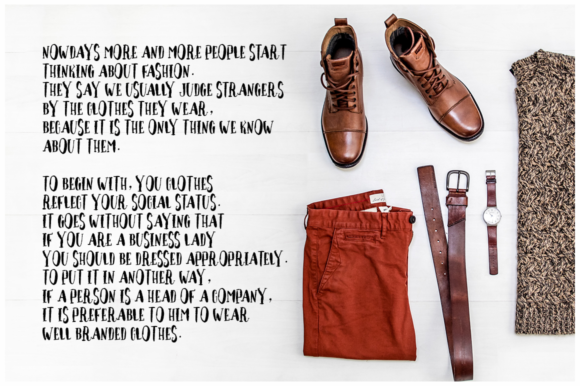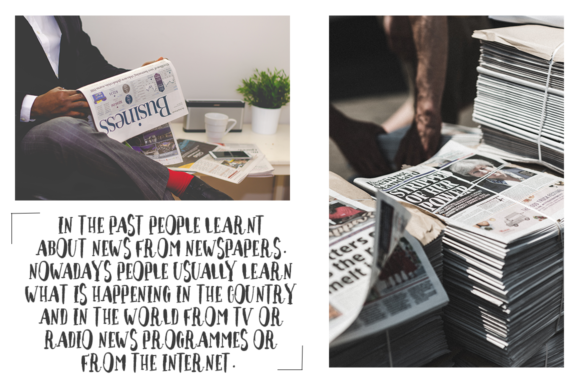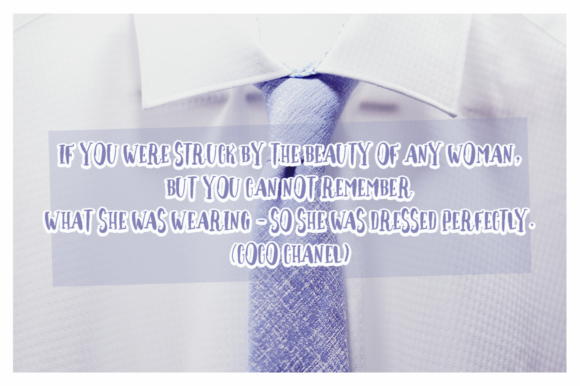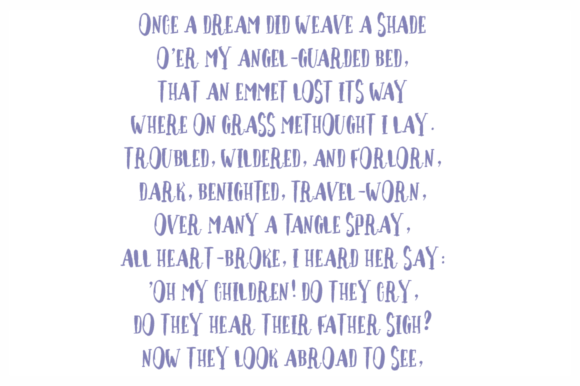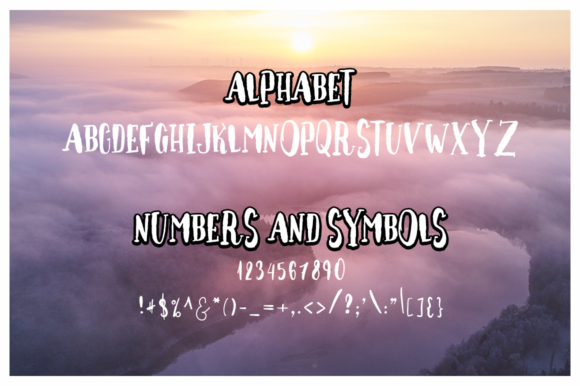
HomeScript FontsHome Sweet Home Font Script Fonts Home Sweet Home Font FacebookXPinterestWhatsApp Home Sweet Home Font Poster 2 Home Sweet Home Font Poster 3 Home Sweet Home Font Poster 4 Home Sweet Home Font Poster 5 Home Sweet Home Font Poster 6 About Home Sweet Home Font Home Sweet Home is a fresh and sweet script that will turn any design project into a true standout! DOWNLOAD ON CREATIVE FABRICAThis font is sold and delivered by Creative Fabrica. Font Canyon may earn a commission if you buy through this link. People also explored Ballada Font Santoren Font Bocadillo Bregudul Font Flowerbrain Font Halloween Pumpkin Font Raincoat Fedian Font Garvis Pro 296 0 TagsHome Sweet Home Font Previous articleFelicita FontNext articleSolitude Font LEAVE A REPLY Cancel reply Comment: Please enter your comment! Name:* Please enter your name here Email:* You have entered an incorrect email address! Please enter your email address here Website: Save my name, email, and website in this browser for the next time I comment. Personal Use Free Joystix Monospace Personal Use Free Read more about this font Sweet Someday Personal Use Free Read more about this font Rembank Personal Use Free Read more about this font Maharany Personal Use Free Read more about this font BLOG 5 Fonts That Will Dominate Design Trends in 2026 5 Fonts for 2026 That Will Dominate Design Trends Typography plays a critical role in visual communication, and as we look ahead to 2026, it’s... Free Fonts Risk: Why Free Fonts Can Be Dangerous for Designers Fonts That Capture the Spirit of New York City How to Install and Use Fonts on Windows, macOS, and Web Projects